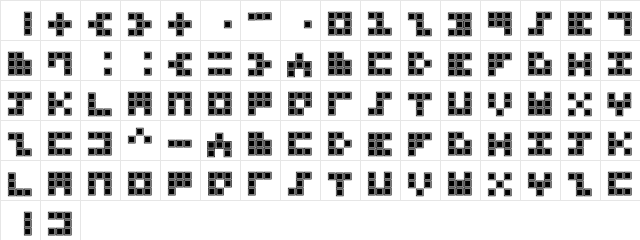
Blocky Outlined Regular
Design Context for Blocky Outlined Typeface
Blocky Outlined is built around its visual character rather than neutral utility — its distinctive forms are designed to make an impression at display sizes.
Font Pairing: Pair with a clean neutral sans-serif for body copy to let Blocky Outlined's character lead without overwhelming the composition.
Pro Tip: Use Blocky Outlined exclusively at display sizes — it was designed to be seen, not read at length. Let a neutral companion handle body copy.